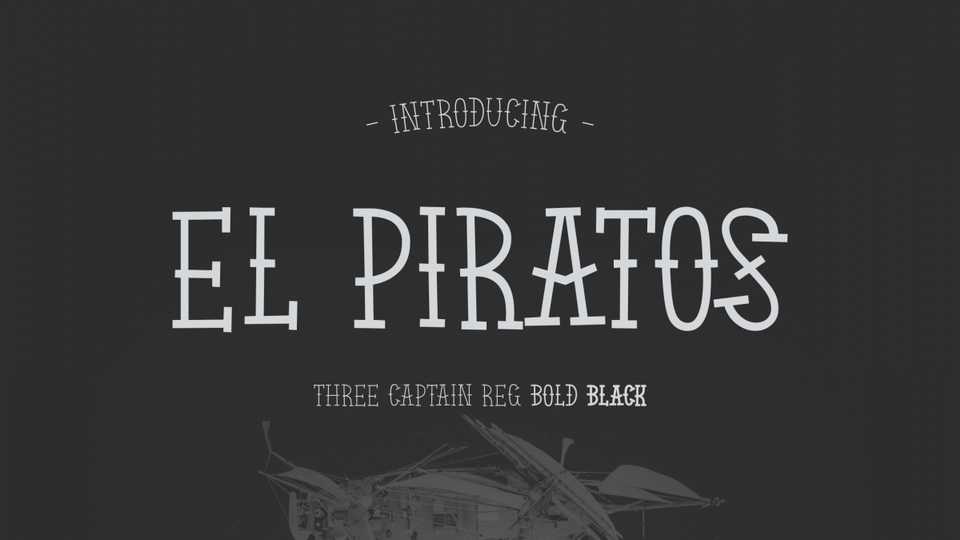
Download El Piratos font, an all caps typeface with clean cut old tattoo style, a bit bouncy, and a lot of excitement. El Piratos is the captain of the rough fontography sea.